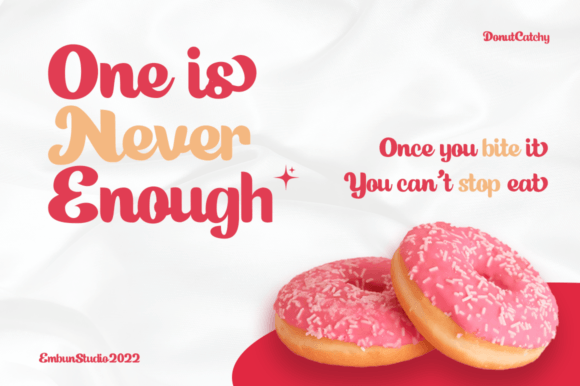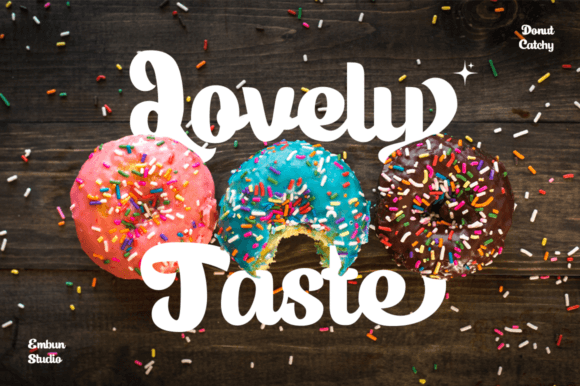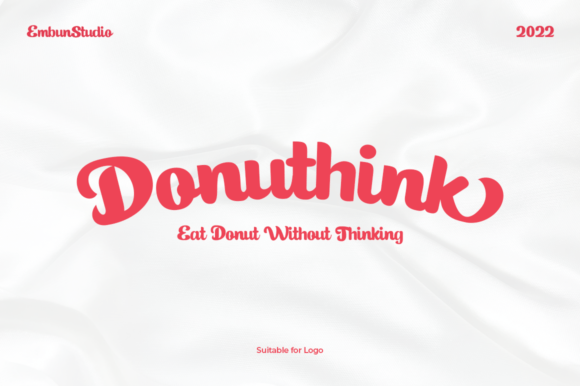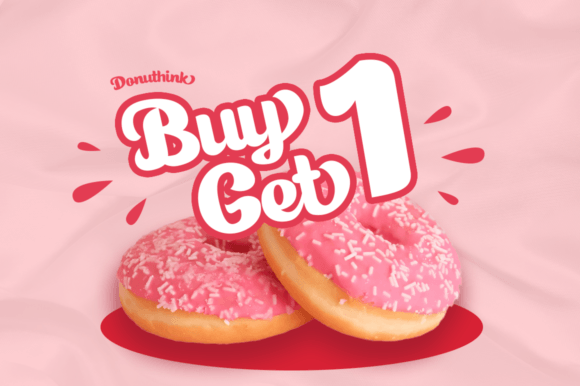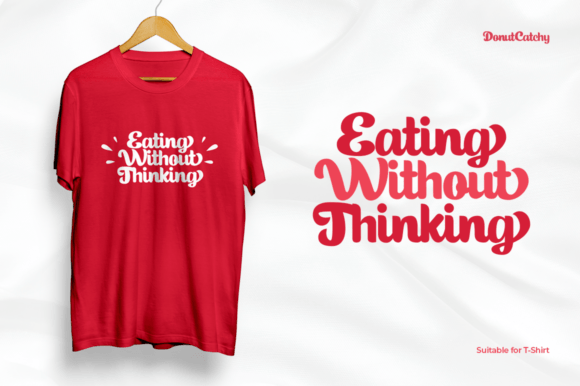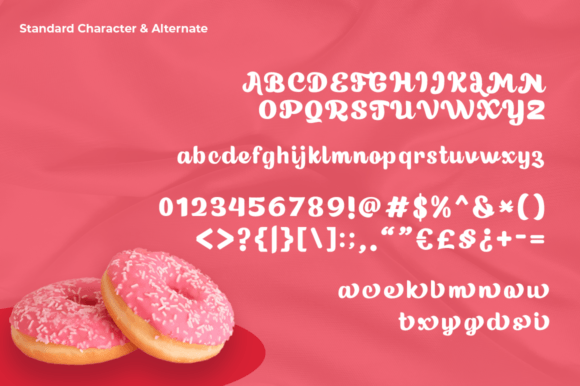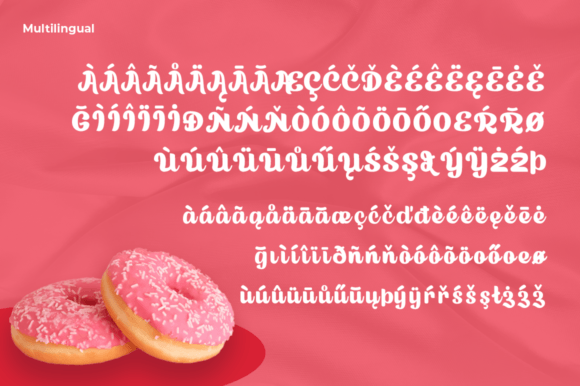
Donut Catchy Font
Introducing “Donut Catchy,” a font that strikes a delightful balance between charm and elegance. This stunning script font pays homage to classic calligraphy, adding a stylish and sophisticated touch to your design projects. “Donut Catchy” is more than just a font; it’s a versatile and captivating design element that can elevate a variety of projects, including branding, headings, wedding designs, invitations, signatures, logos, labels, and more.
The charm and elegance of “Donut Catchy” make it suitable for a wide range of applications. Whether you’re working on a romantic wedding invitation, a sophisticated logo, or eye-catching branding materials, this font adapts seamlessly, enhancing the overall aesthetic of your creative endeavors.
Envision “Donut Catchy” gracing your designs with its stylish and classic calligraphy-inspired strokes. Picture it on labels, where it adds a touch of sophistication to product packaging. Whether your project is formal or has a whimsical flair, “Donut Catchy” is ready to be the key element that elevates its visual appeal.
In summary, “Donut Catchy” is more than just a font; it’s a charming and elegant design asset. Embrace its stylish homage to classic calligraphy confidently, knowing that it can take your branding, headings, and various design projects to the highest level. Let “Donut Catchy” be the font that adds a touch of sophistication and captivation to your creative endeavors, making them truly memorable and visually stunning.